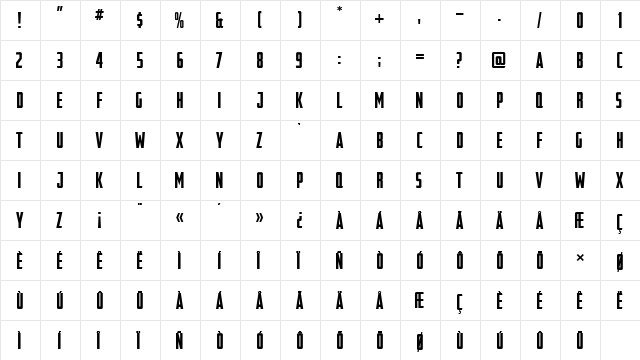
Out Of My League Regular
| Designer | HENRIavecunK |
Design Context for Out Of My League Typeface
Out Of My League takes a measured approach to typography — its balanced proportions and neutral character make it a reliable workhorse for both digital and print work.